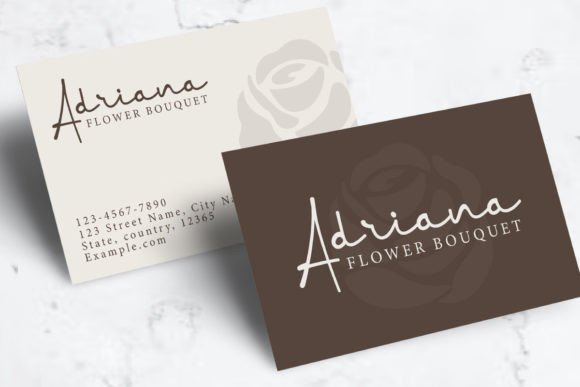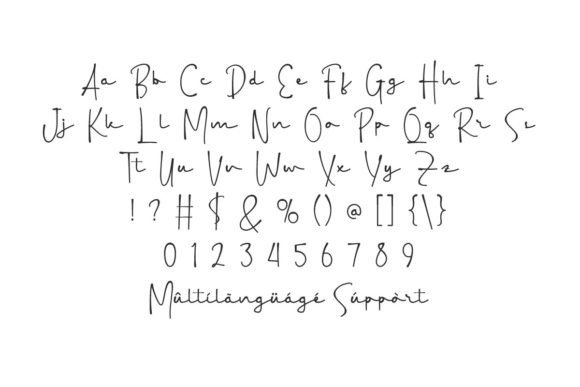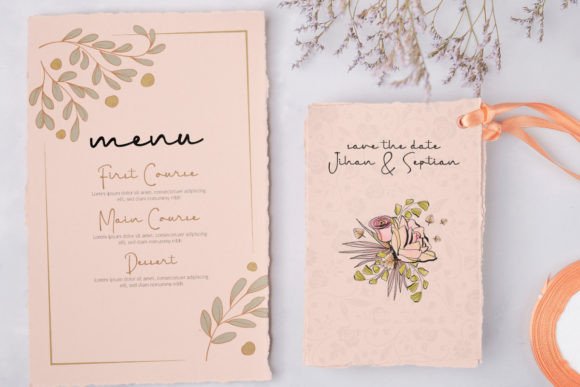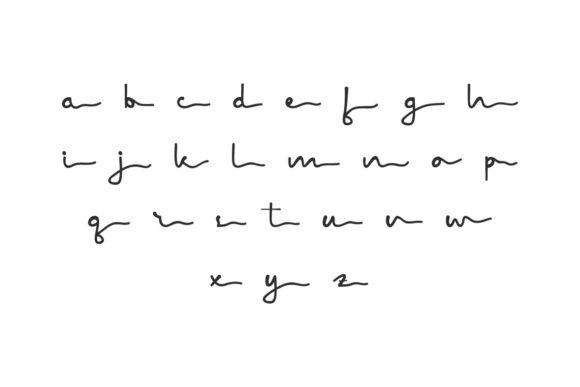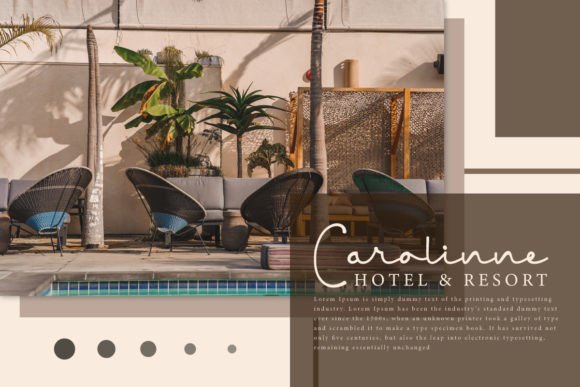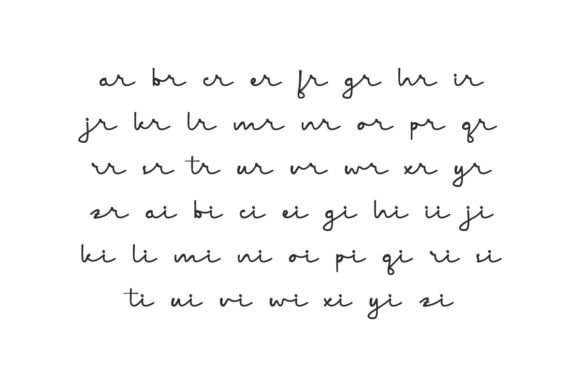
Hair Color Font: Add a Touch of Natural Elegance to Your Designs
Are you tired of using the same old fonts in your designs? Look no further than the Hair Color Font, a casual and neat handwritten script font that’s sure to capture your heart. With its natural style and effortless charm, this font is perfect for designers and crafters looking to add a touch of elegance to their work.
What is Hair Color Font?
Hair Color Font is a beautiful handwritten script font that’s designed to mimic the natural flow of handwriting. Its casual and neat style makes it perfect for a wide range of design projects, from branding and packaging to social media graphics and more. The font’s unique charm lies in its imperfections, which give it a warm and inviting feel that’s hard to resist.
Key Features of Hair Color Font
- Natural Style: Hair Color Font has a natural, handwritten style that’s perfect for designs that require a personal touch.
- Casual and Neat: The font’s casual and neat style makes it easy to read and perfect for use in a variety of design projects.
- Unique Charm: Hair Color Font’s imperfections give it a unique charm that’s sure to set your designs apart.
Why Use Hair Color Font?
There are many reasons why you should consider using Hair Color Font in your designs. Here are just a few:
- Add a Personal Touch: Hair Color Font’s natural style and unique charm make it perfect for adding a personal touch to your designs.
- Stand Out from the Crowd: The font’s unique style and imperfections will help your designs stand out from the crowd and grab attention.
- Perfect for Branding: Hair Color Font is perfect for branding projects, such as logos, packaging, and business cards.
- Easy to Pair: The font is easy to pair with other fonts and can be used to create a wide range of design styles.
Design Ideas Using Hair Color Font
Here are some design ideas to get you started:
- Branding and Packaging: Use Hair Color Font to create unique branding and packaging designs that stand out.
- Social Media Graphics: Use the font to create eye-catching social media graphics that grab attention.
- Invitations and Cards: Use Hair Color Font to create beautiful invitations and cards for special occasions.
- Blog and Website Design: Use the font to add a personal touch to your blog or website design.
In conclusion, Hair Color Font is a beautiful handwritten script font that’s perfect for designers and crafters looking to add a touch of natural elegance to their work. With its unique charm and effortless style, this font is sure to capture your heart and inspire your designs. So why not give it a try and see the difference it can make?